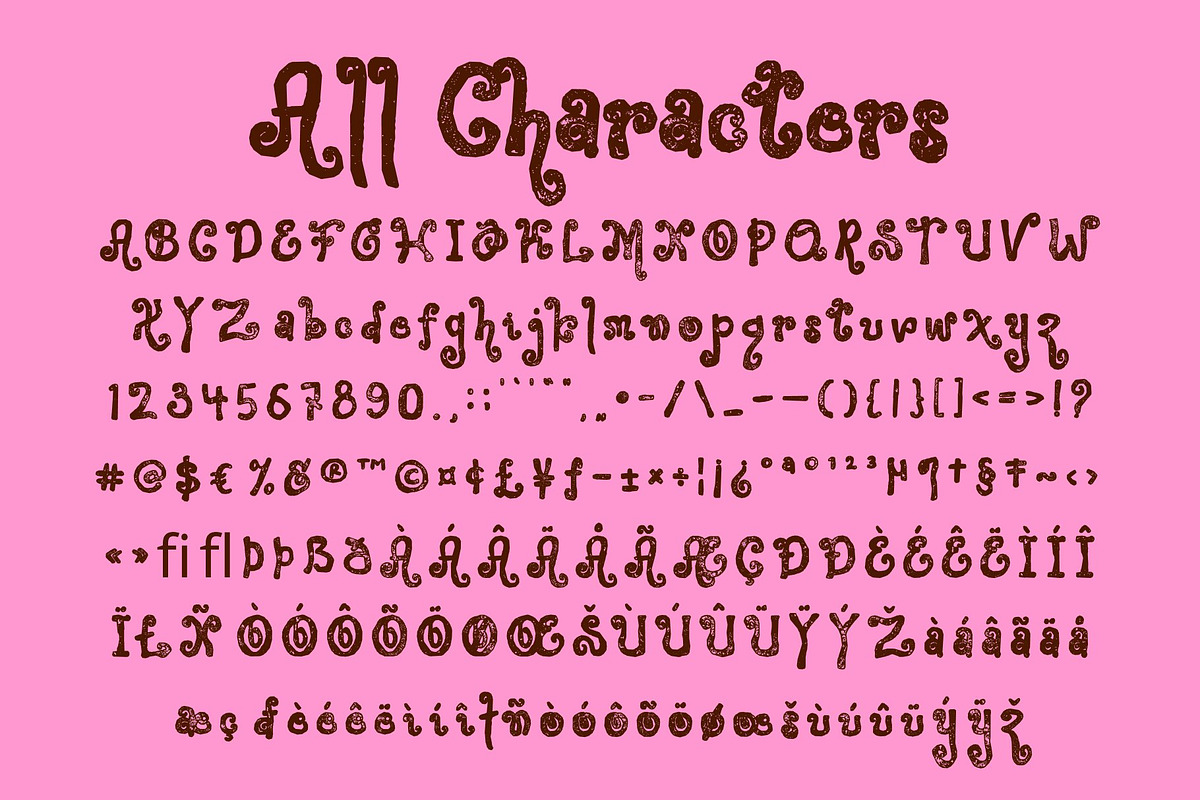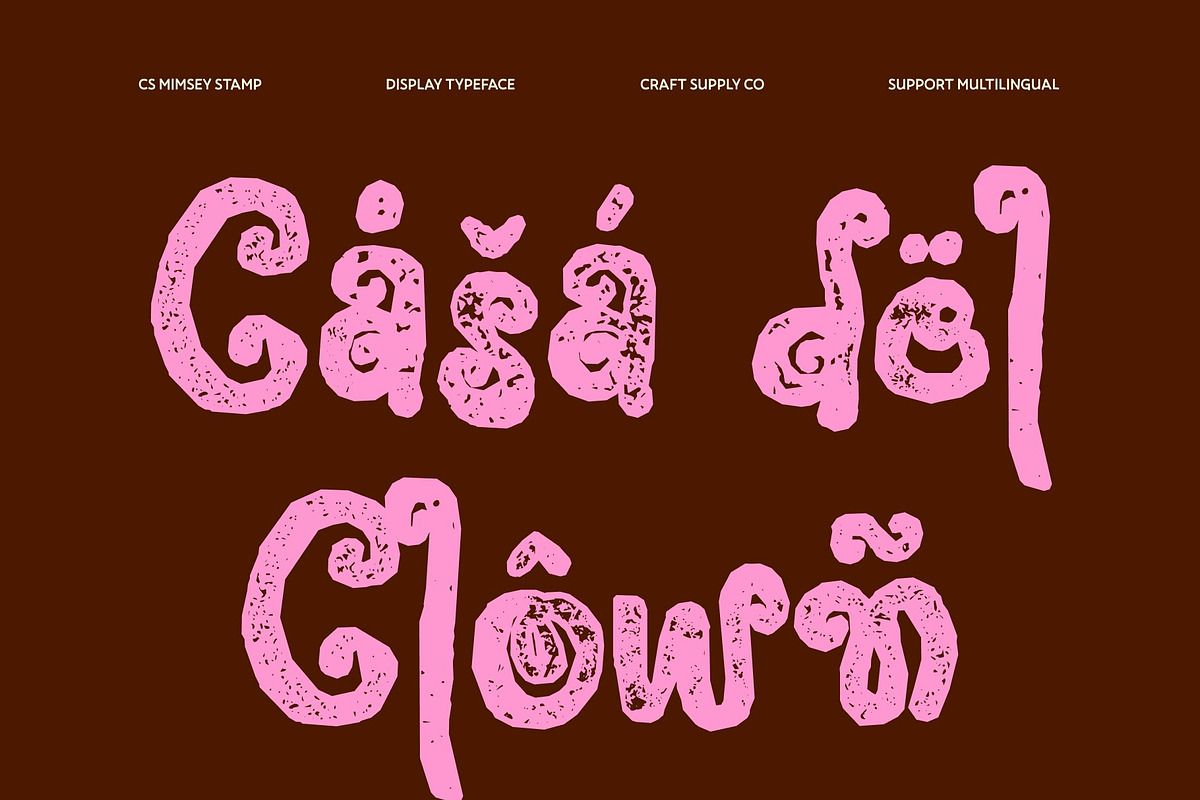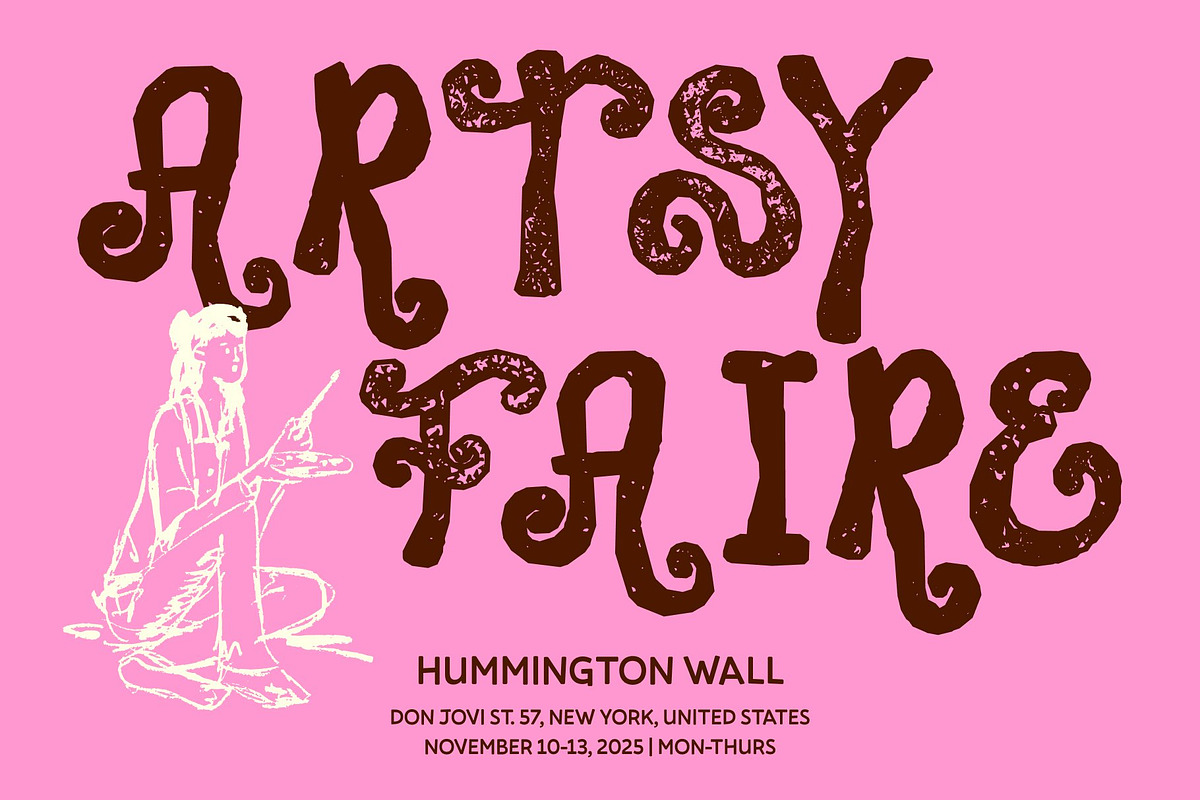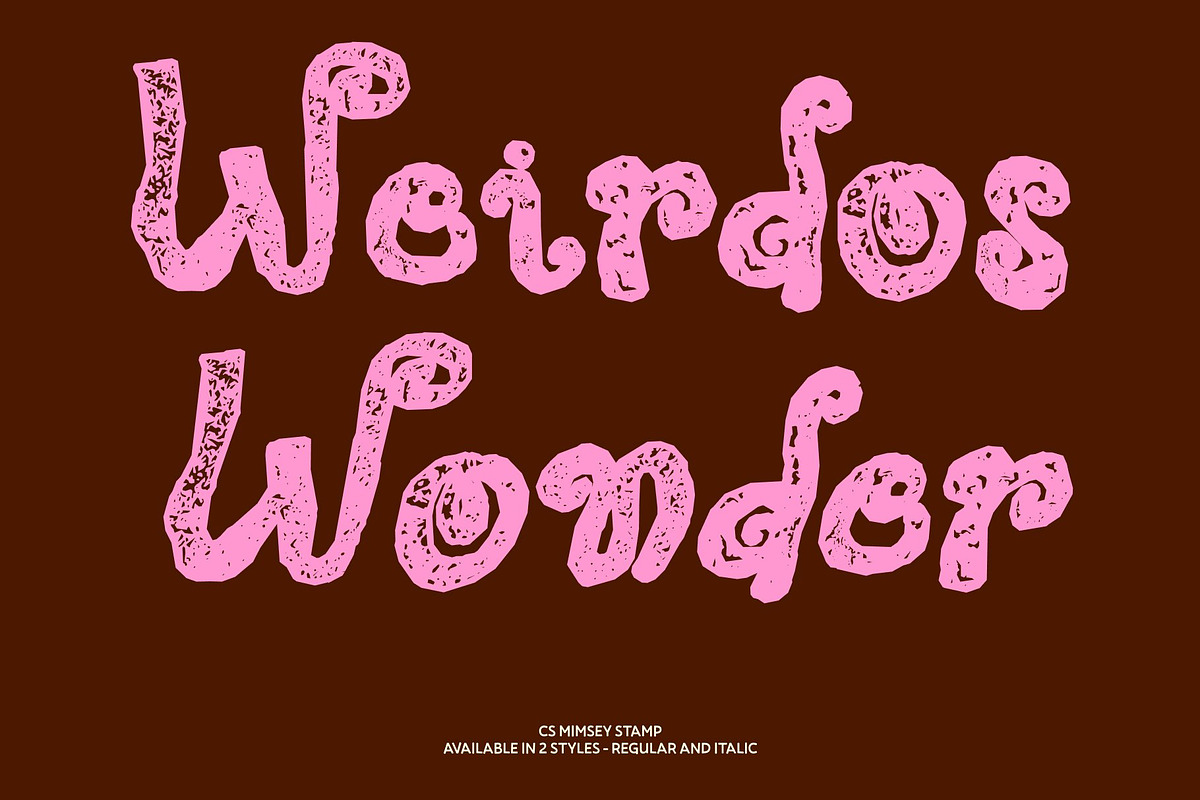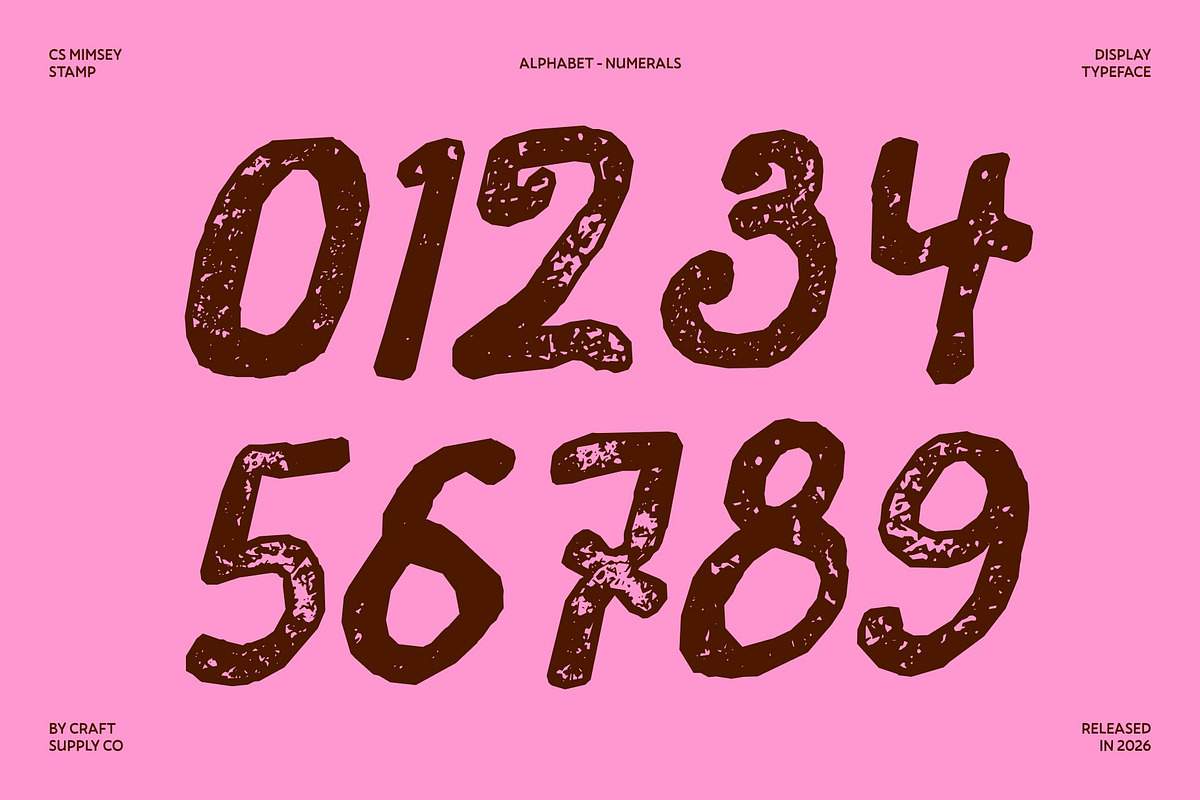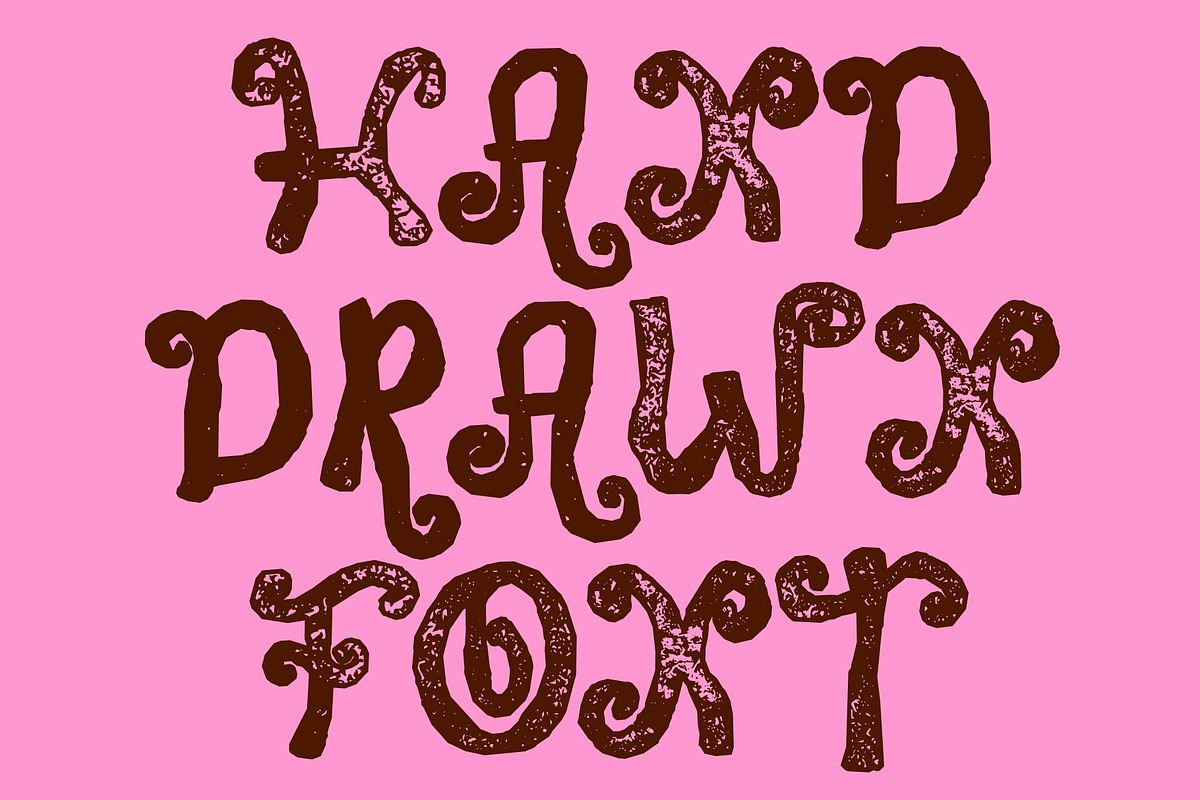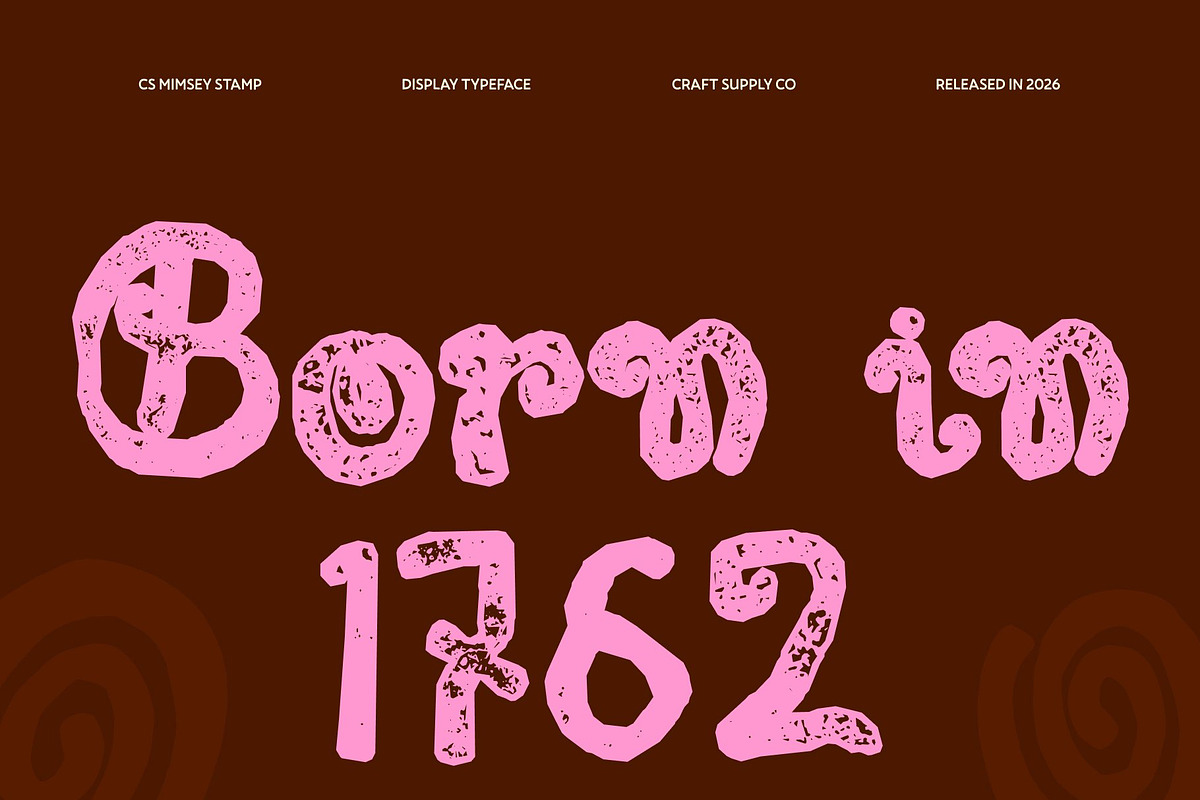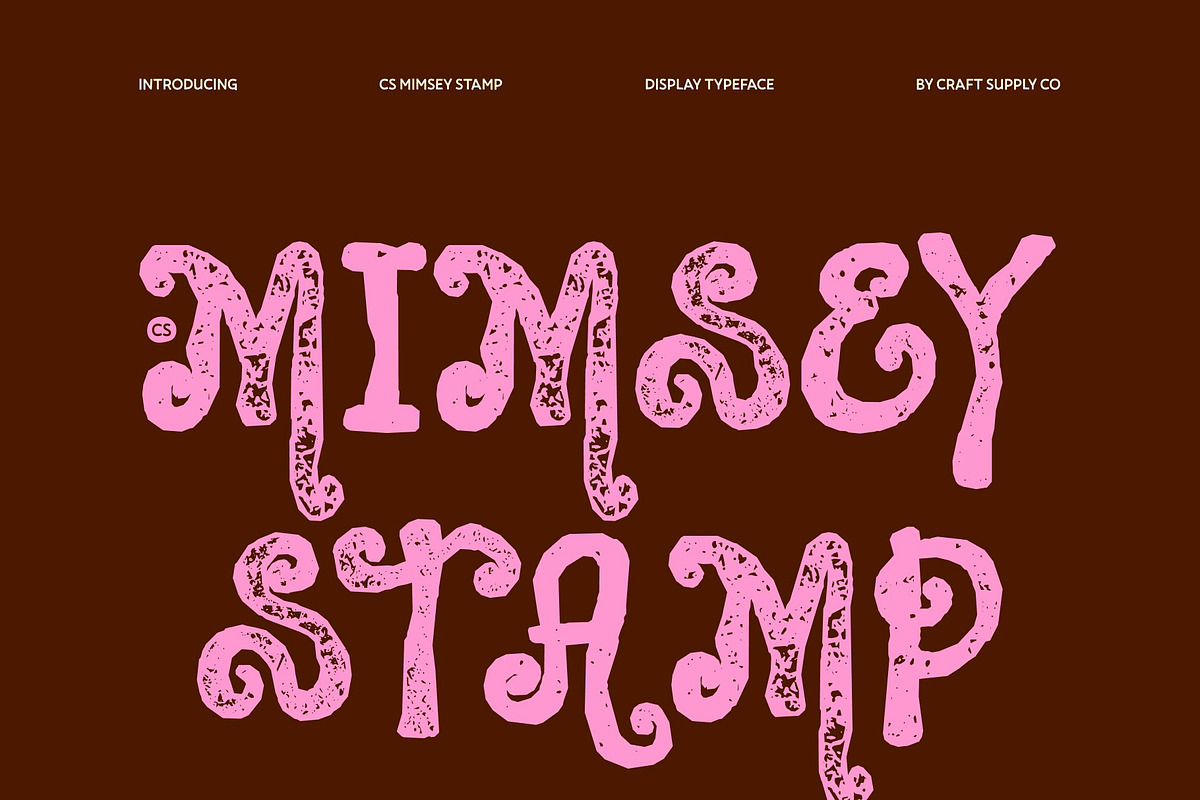
CS Mimsey Stamp
CS Mimsey Stamp – Where Whimsy Meets Fantasy
Decorative with Magical Stamp Texture This is a decorative display that blends curved letterforms with enchanting fantasy-inspired details. The added stamp effect introduces a subtle vintage texture, giving each character a handcrafted, storybook feel that feels both playful and timeless.
Whimsical Character for Storytelling Soft curves and imaginative shapes create a sense of wonder, making this font perfect for children’s books, fairy tales, and educational projects. Every letter feels expressive and full of personality, helping designs feel warm, inviting, and rich with narrative charm.
Fantasy Details with Artistic Depth Intricate etched accents and decorative flourishes add depth and visual interest. The stamped texture enhances these details with a slightly aged, artistic finish, ensuring the font stands out beautifully in posters, branding, and creative layouts.
Versatile for Playful and Creative Branding From merchandise and invitations to packaging and digital media, this font adapts effortlessly to imaginative projects. Its blend of whimsical elegance, fantasy flair, and vintage character makes it perfect for designs that aim to spark creativity and leave a magical, memorable impression.
CS Mimsey Stamp Regular
CS Mimsey Stamp Italic